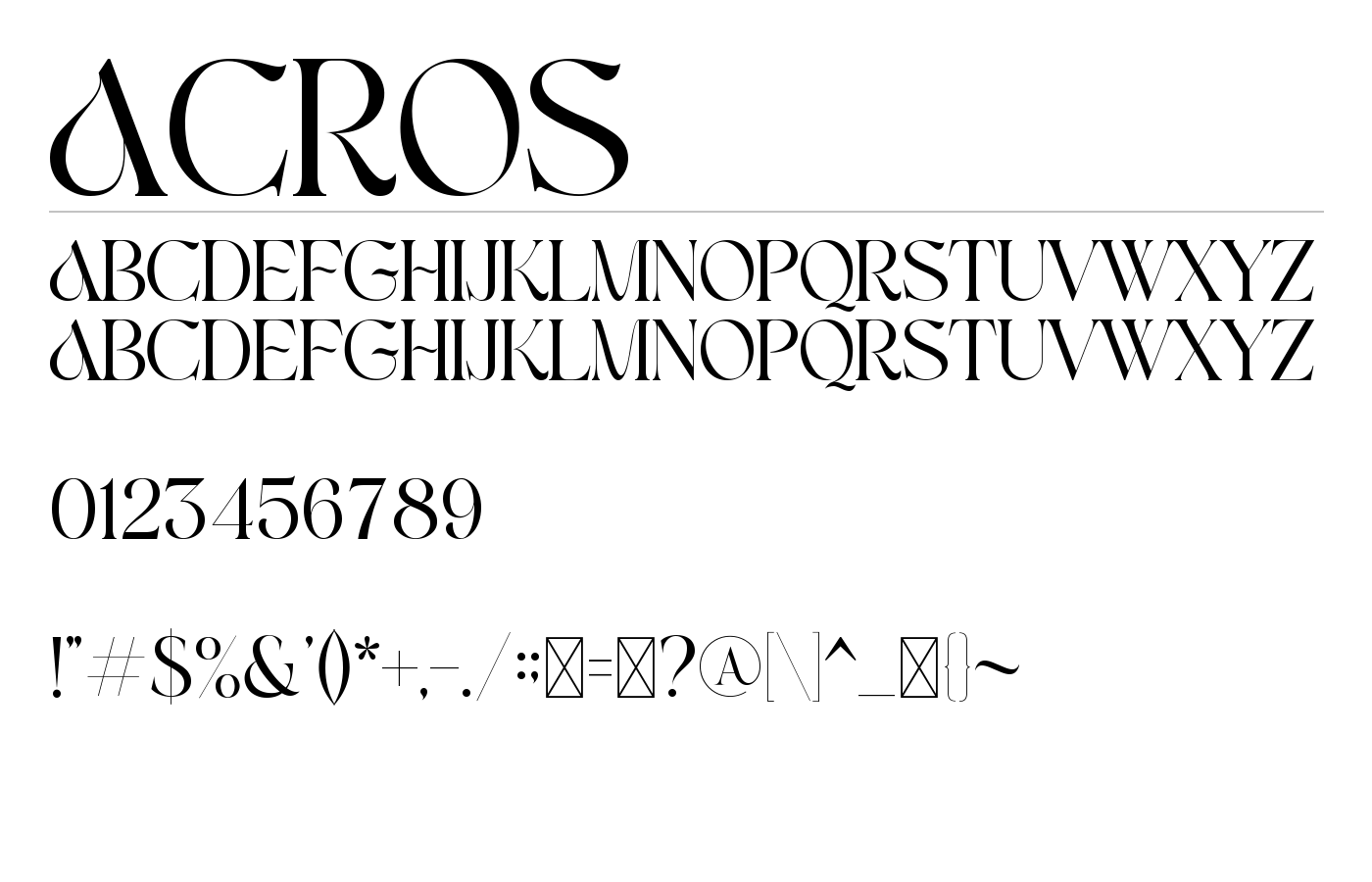
Acros is a refined serif typeface characterized by its high contrast strokes and elegant, delicate details, such as the unique teardrop-shaped terminals and sharp, bracketed serifs. Its tall, narrow letterforms and sophisticated style make it perfect for luxury branding, editorial headlines, and stylish packaging where a touch of modern elegance and distinctiveness is desired. This font combines classic serif refinement with creative flair, standing out in upscale and artistic design projects.
Acros Font
About Acros Font
| Font family | Acros Font |
| Designer | Usman Albaehaqi |